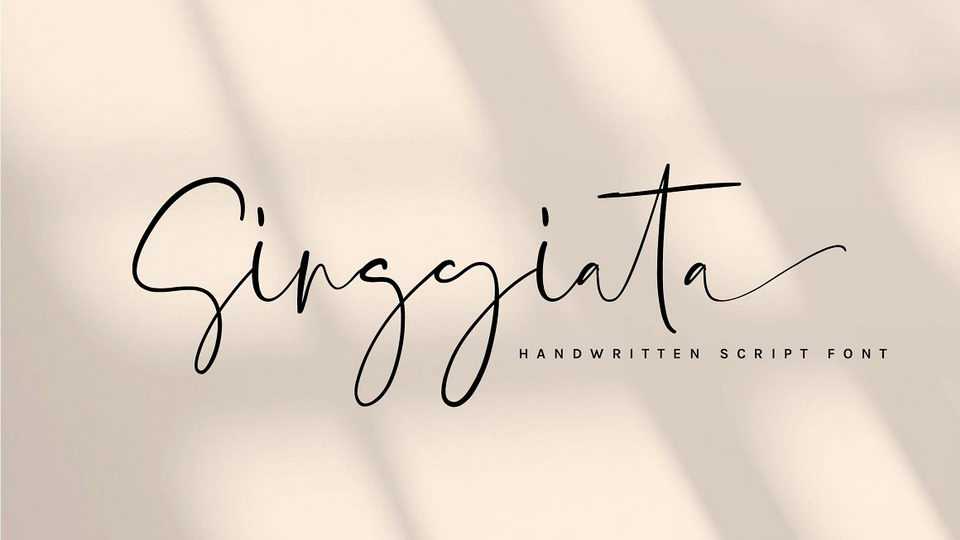
Download Singgiata font, a handwritten script with a casual yet stylish signature look. Singgiata is perfect for branding, wedding invitations and cards, logotype and many more!
Designer: Etigletters